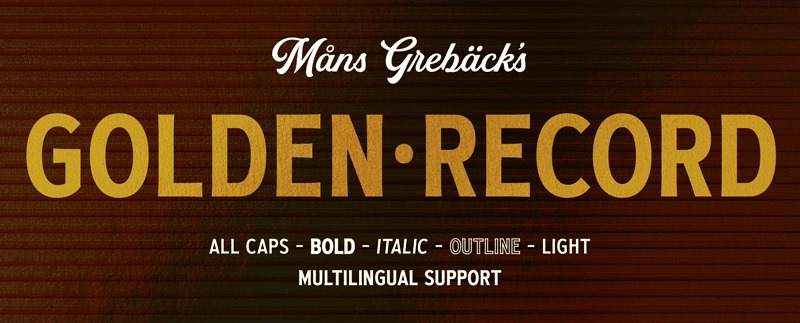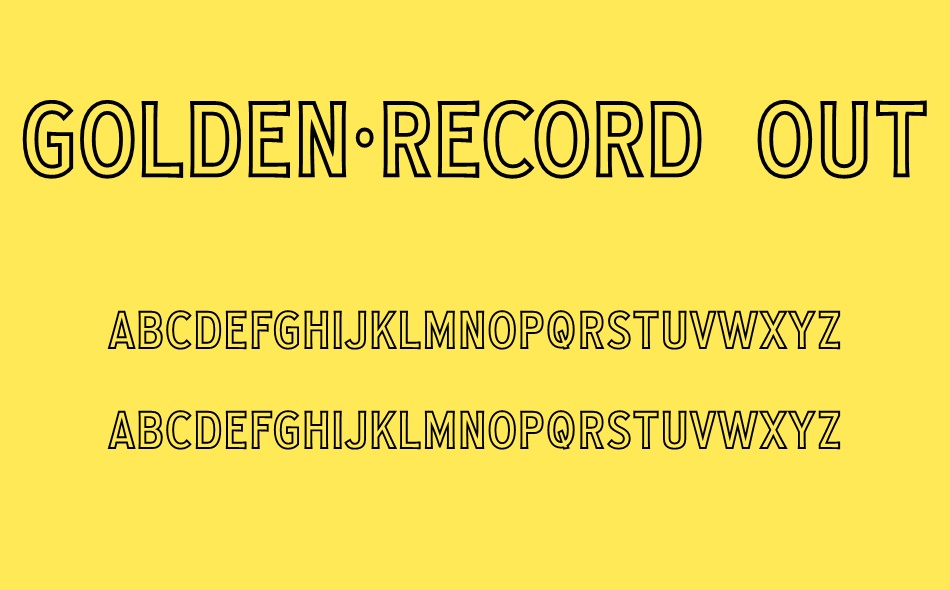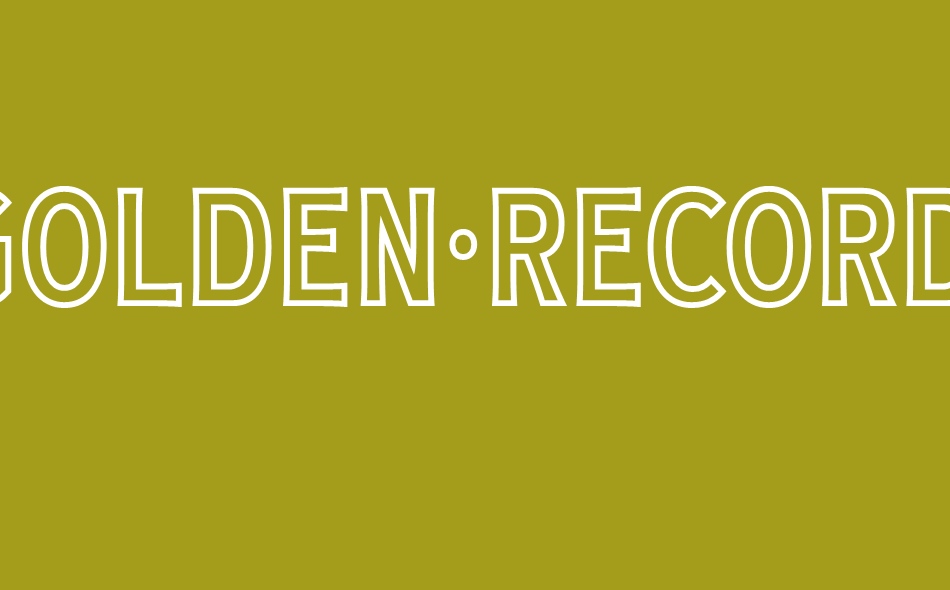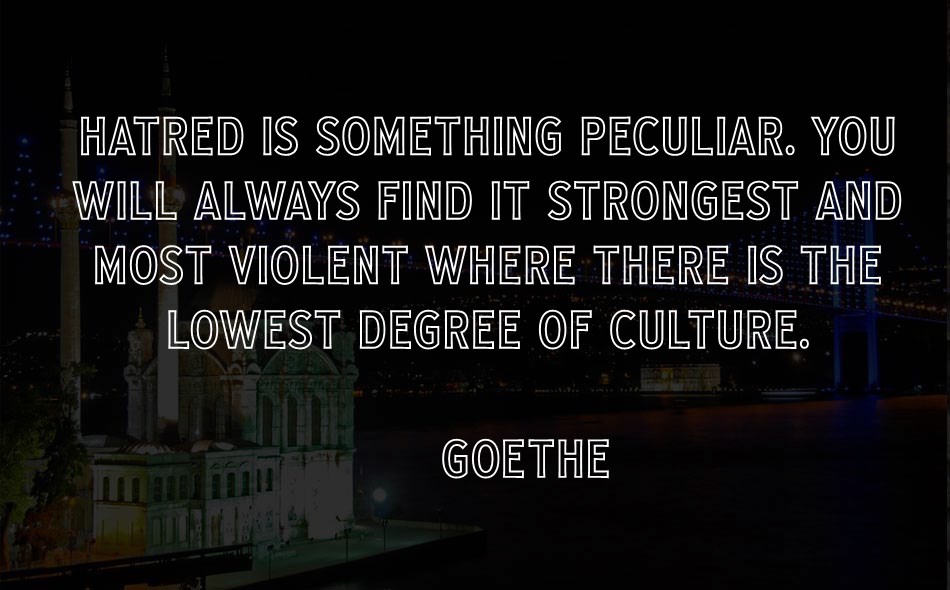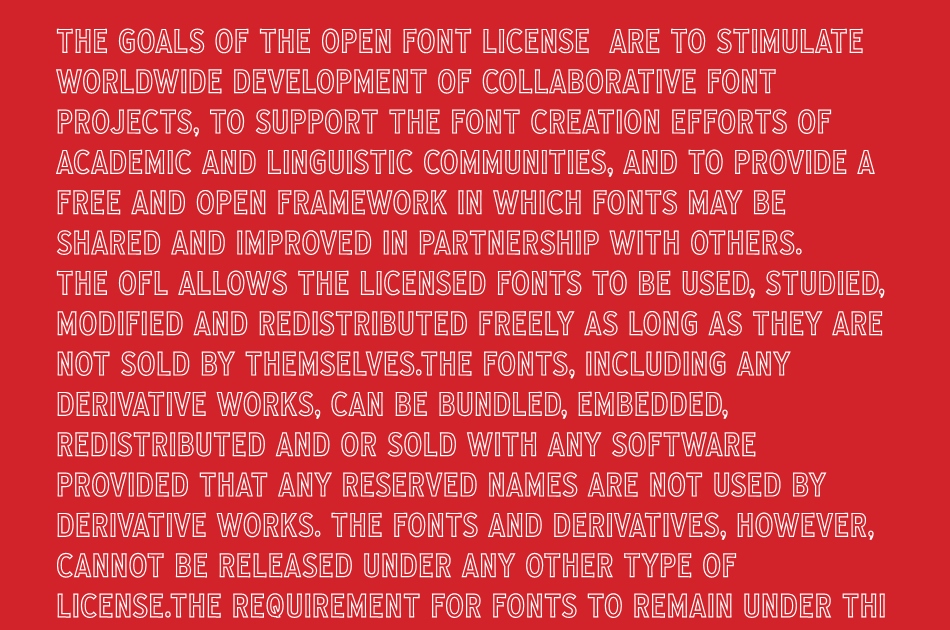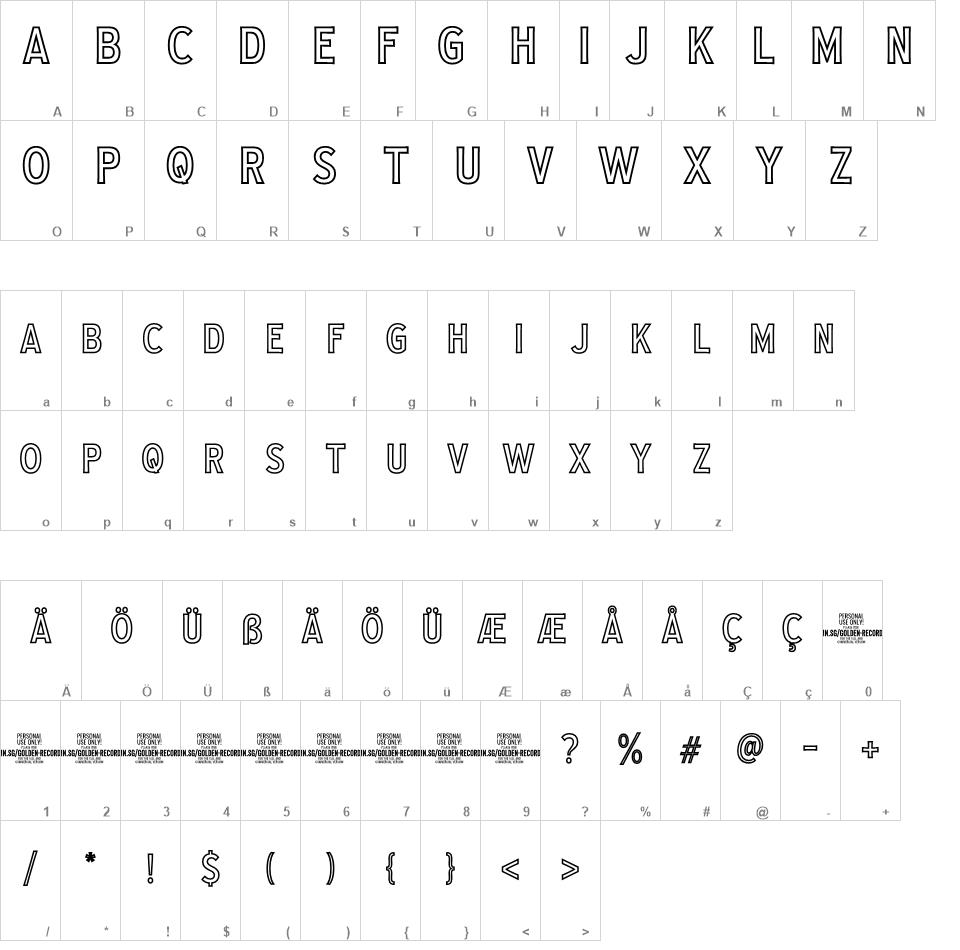
Golden Record font
Golden Record is an elegant all caps sans serif typeface with a tall, classic, and high-quality feel. The font's classiness evokes a sense of luxury and opulence, making it ideal for high-end branding and design applications.
Golden Record is an elegant all caps sans serif typeface with a tall, classic, and high-quality feel. Its timeless design is perfect for adding a touch of sophistication to any project. The font's classiness evokes a sense of luxury and opulence, making it ideal for high-end branding and design applications.
Golden Record is a versatile typeface family consisting of the styles Light, Regular, Bold, and Outline, each available in Italic, offering a wide range of creative possibilities.
The idea for Golden Record came to life when Mans Greback was inspired by the elegance of vintage vinyl records and their iconic gold labels, merging classic aesthetics with modern design principles.
The font is built with advanced OpenType functionality and has a guaranteed top-notch quality, containing stylistic and contextual alternates, ligatures, and more features; all to give you full control and customizability. It has extensive lingual support, covering all Latin-based languages, from Northern Europe to South Africa, from America to South-East Asia. It contains all characters and symbols you'll ever need, including all punctuation and numbers.
Mans Greback is a Swedish typeface designer known for crafting high-quality fonts with a focus on versatility and aesthetics. He created Golden Records to provide designers with a unique and sophisticated typeface for upscale projects. Greback is committed to delivering exceptional quality in every font he designs, consistently pushing the boundaries of typography.